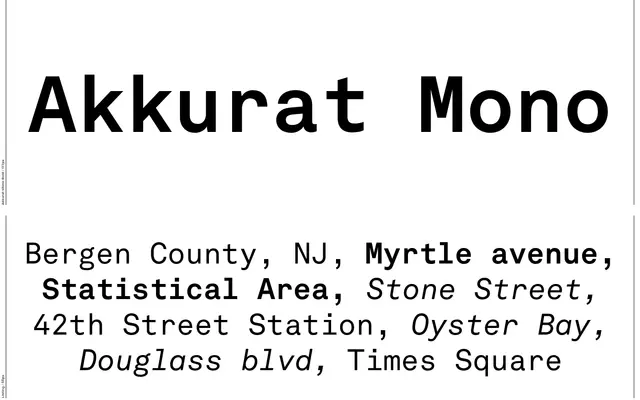
LL Akkurat Mono
Lineto · Laurenz Brunner · 2005
A monospaced offshoot of Laurenz Brunner's LL Akkurat, first released in 2005 and extended to four cuts in 2019.
Grown from a beta version that appeared shortly after the original LL Akkurat in 2004, the mono cut shares its parent's static construction and neutral, technically precise character. The family now comprises four cuts: Regular, Italic, Bold and Bold Italic, all published together in 2019. Its restrained Swiss temperament makes it well suited to refined typesetting wherever a fixed-width face is needed.
A monospaced variant of the grotesque sans LL Akkurat, combining fixed-width spacing with the neutral, technically precise aesthetic of Swiss grotesque type.